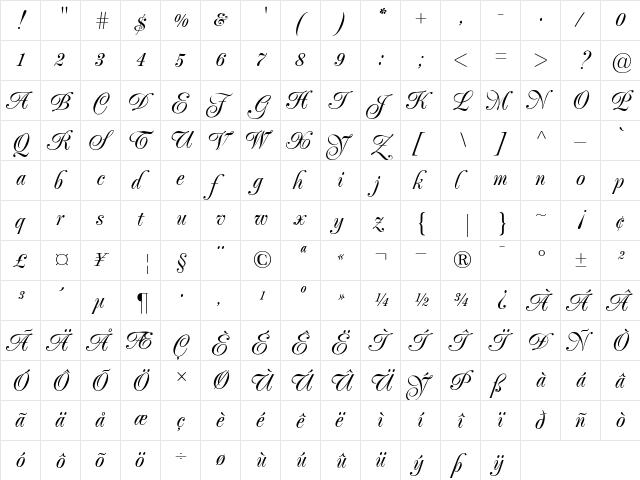
Poppl-Exquisit RomanItalic
Design Context for Poppl-Exquisit Typeface
Poppl-Exquisit is a composed and adaptable typeface that performs quietly and consistently across a wide range of design contexts. The dynamic lean of this cut emphasises speed and emphasis in any layout.
Pro Tip: Try Poppl-Exquisit for annotation and caption copy alongside an upright companion — the contrast in angle creates a dynamic but ordered typographic system.